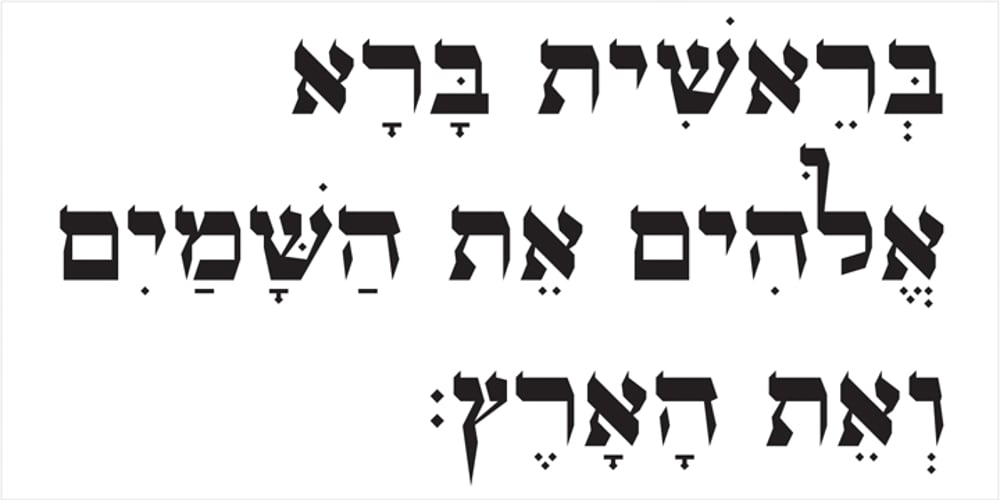
OL Hebrew Formal Script
OL Hebrew Formal Script font
OL Hebrew Formal Script Font Family was designed by Dennis Ortiz-Lopez and published by Dennis Ortiz-Lopez. OL Hebrew Formal Script contains 1 styles and family package options. This font contains every variant found in the Hebrew Bible such as the “mutilated” Waw in Numbers 25: verse 12, the small Heh in Genesis 2: verse 4 and the Nun Inversum before Numbers 10: verse 35 and after verse 36 and elsewhere as well as oversized consonants and various double-wide consonants used in inscriptions.